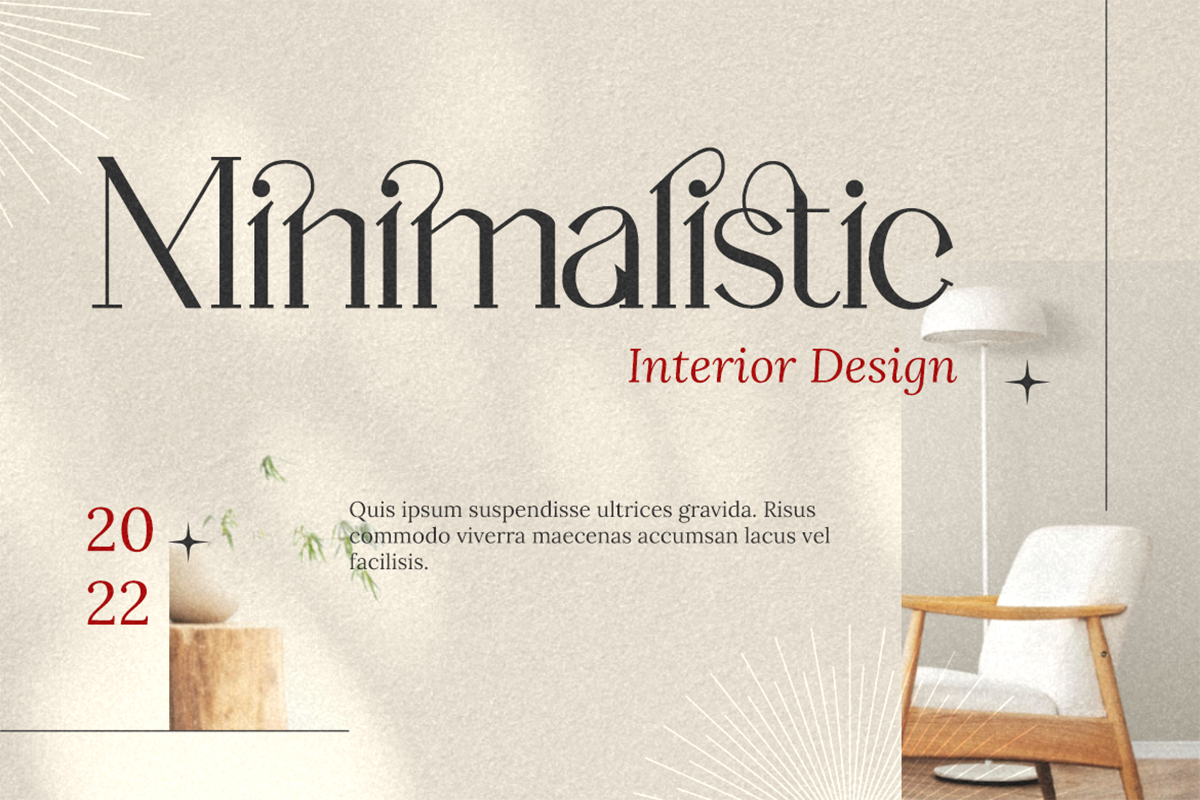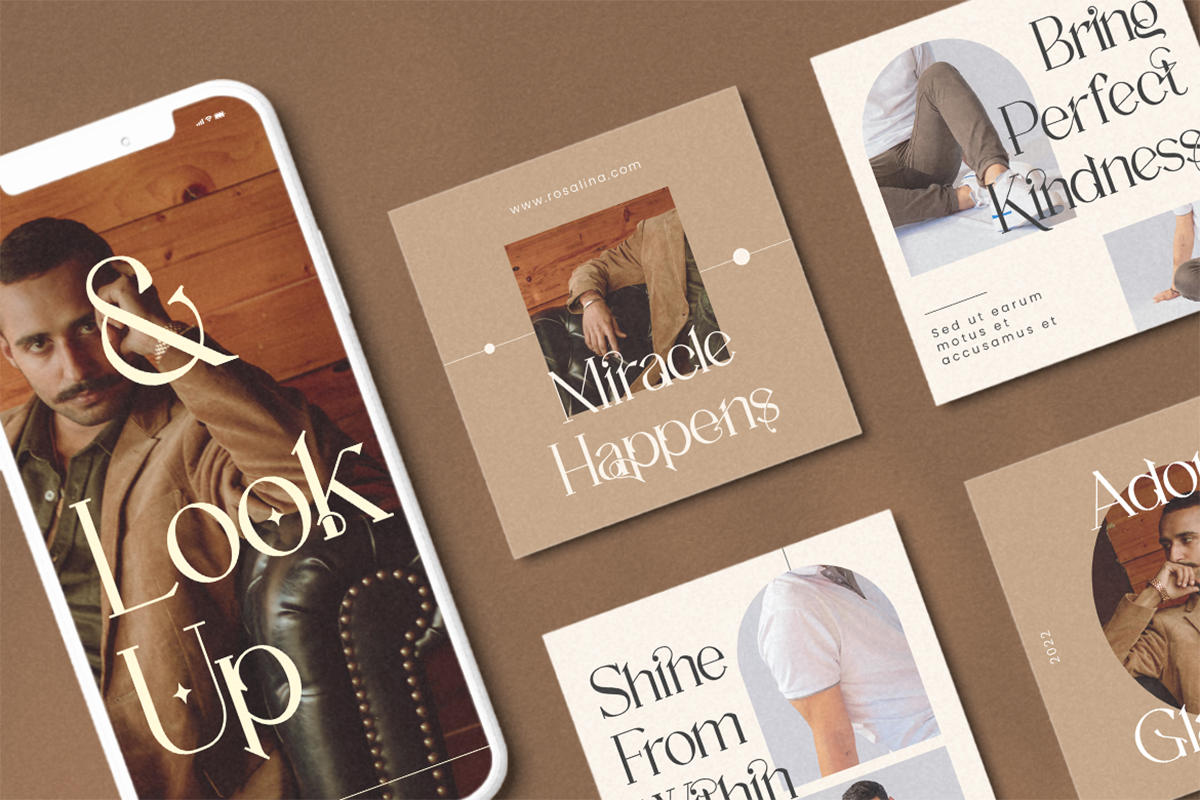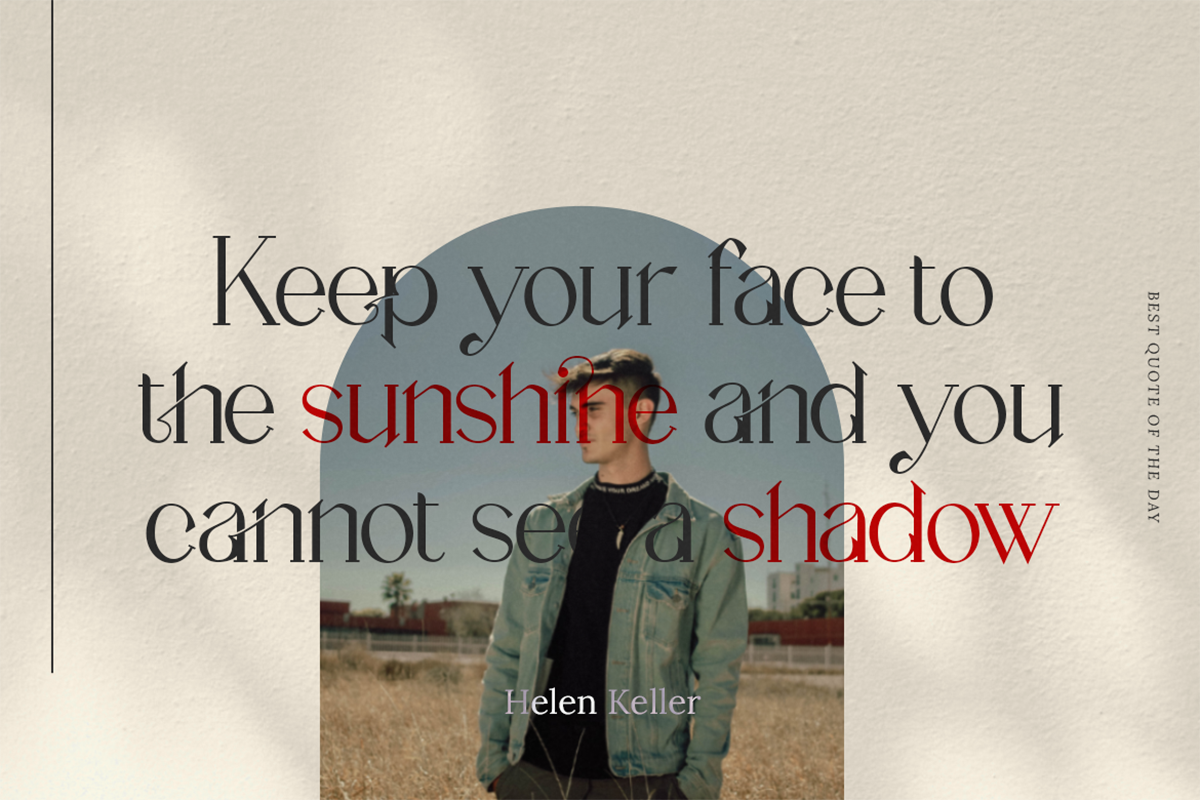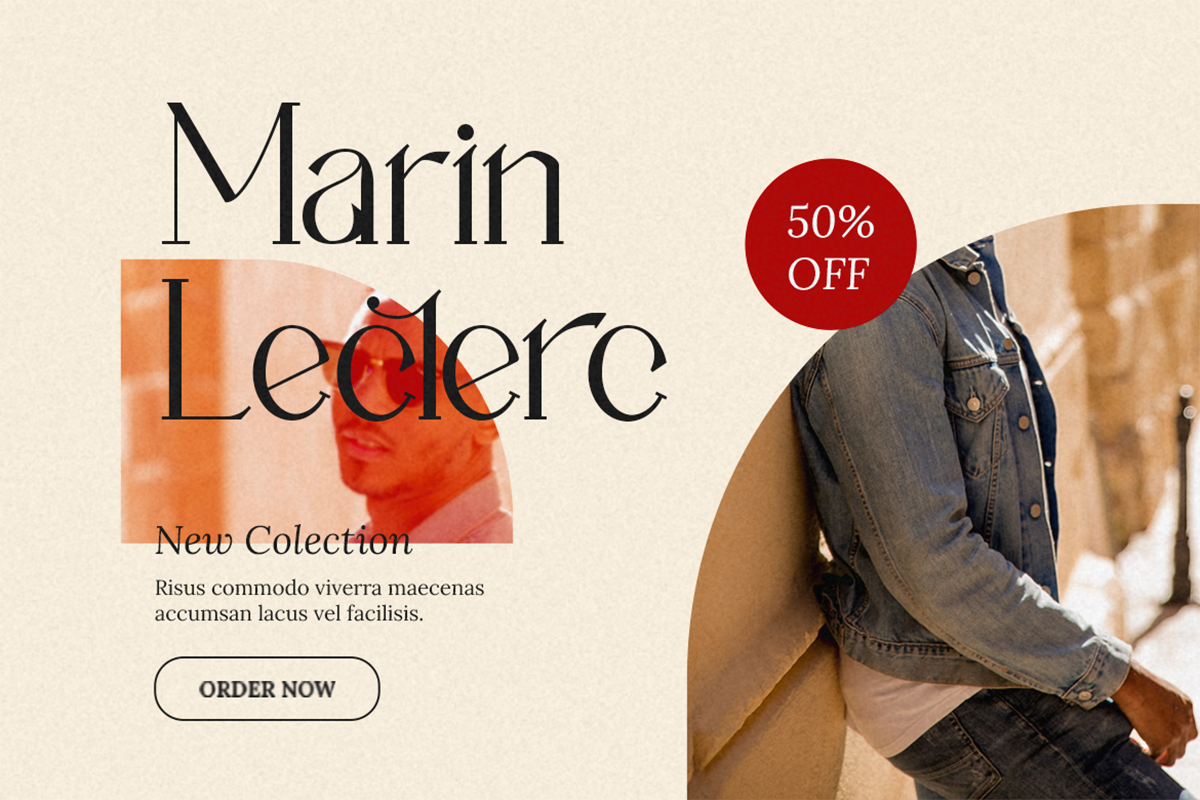
Rosalina Free Font
Rosalina Free Font exudes elegance and grace with its delicate serifs and fluid strokes. Its refined lines give off a sense of sophistication and poise, making it the perfect choice for any project that requires a touch of class and refinement. The font’s timeless beauty is sure to leave a lasting impression on any reader.